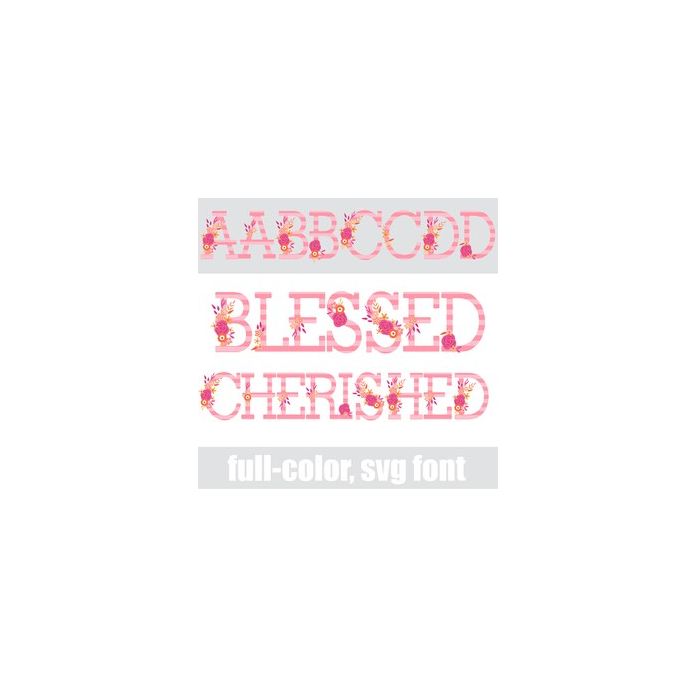
This full-color font features a pretty striped serif with florals on each letter. There is an alt case w/ additional colors you can access through your system or Silhouette's glyph map.